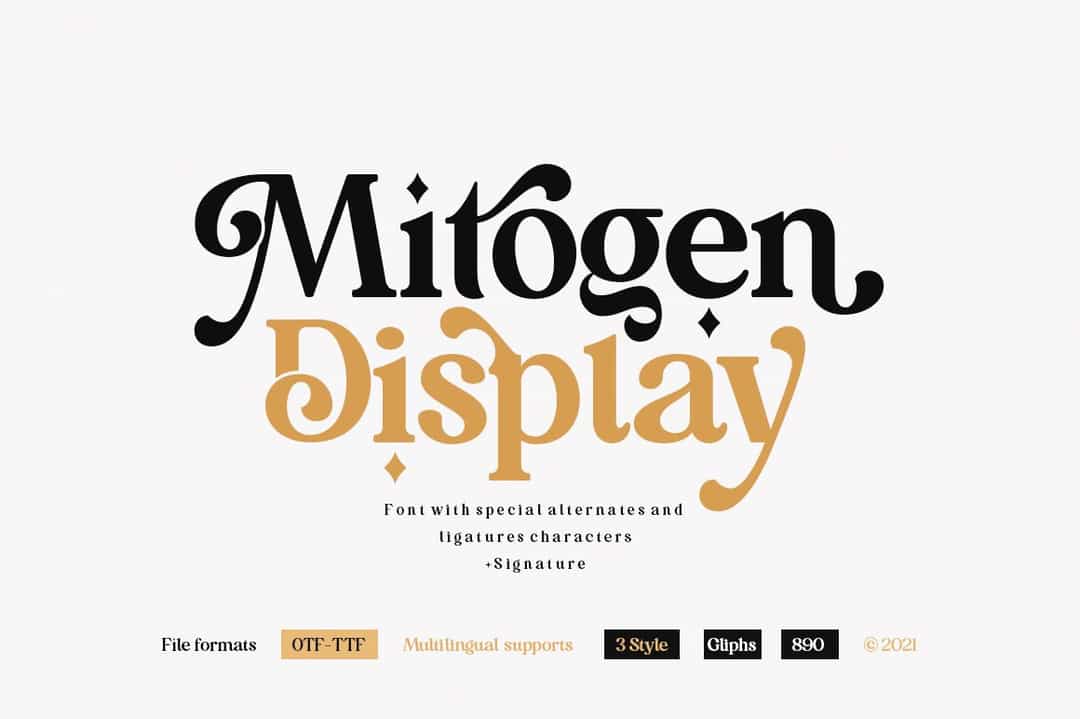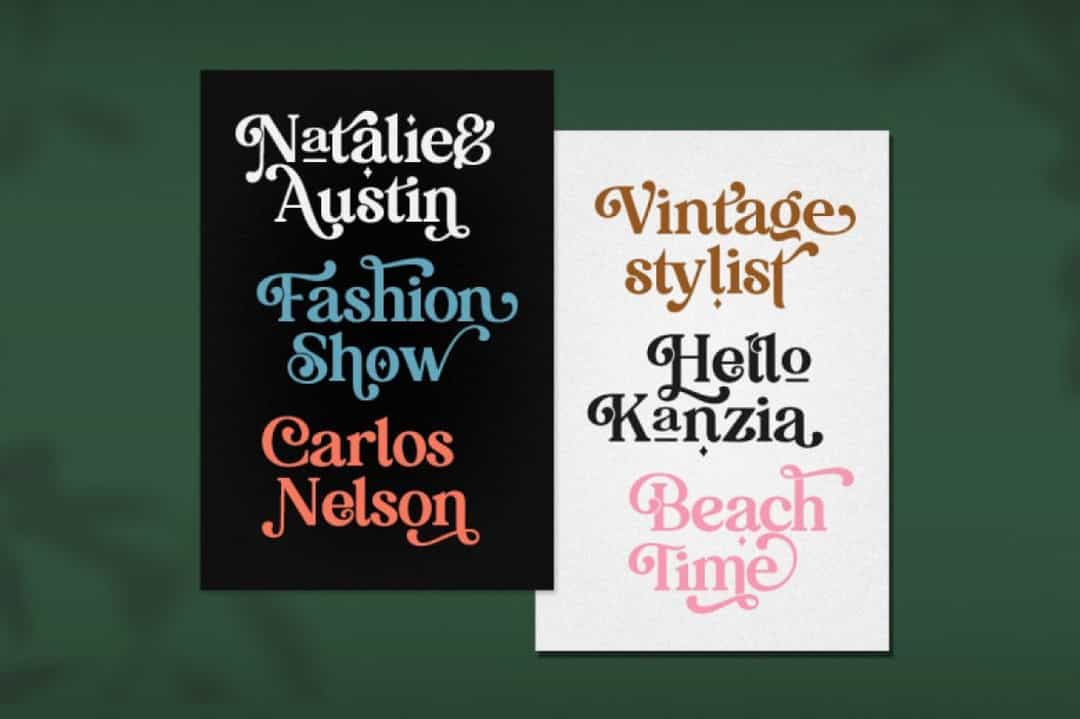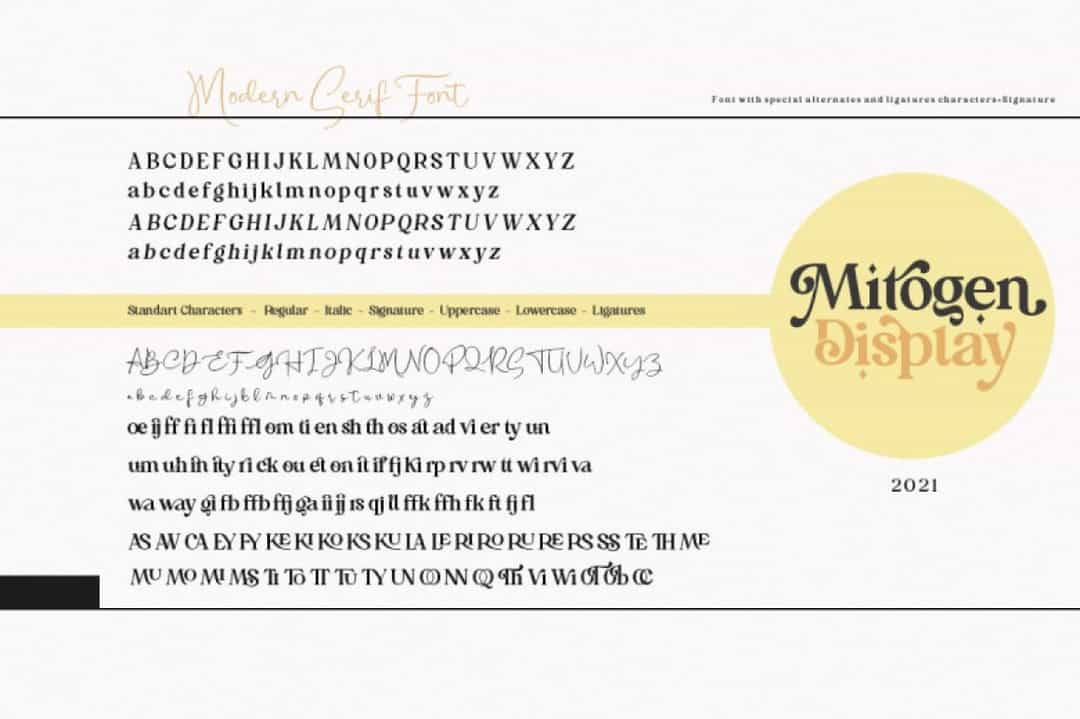
Mitogen Display is a flexible serif font with endless versatility. Mitogen Signature makes mixing and matching easier; perfect for magazine illustrations, wedding invitations, branding projects, posters, and much more!